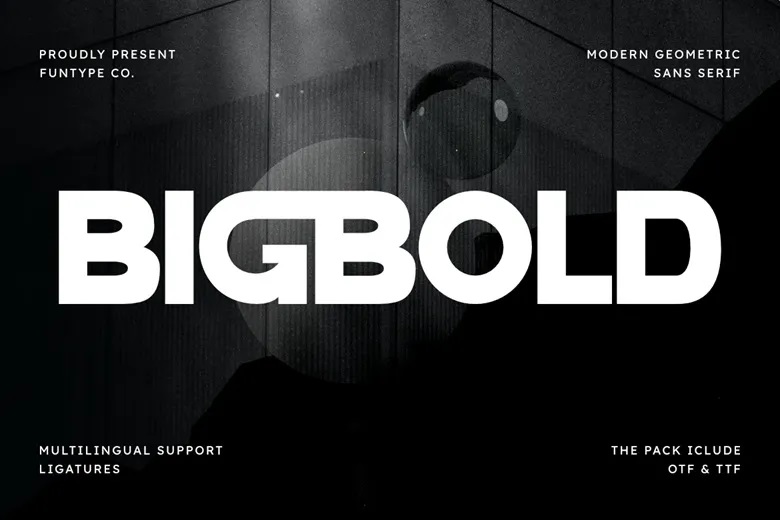
Bigbold Font
Bigbold is an incredible and futuristic geometrical sans serif font. True to the namesake, this typeface is incredibly bold and solid, and immediately stands out thanks to its rounded, friendly and yet assertive form. It’s designed to have the greatest impact and legibility, and is ideal for dramatic headlines, powerful branding and logo designs, sports graphics, editorial work and display purposes.
With its clean structure, ligatures, and multilingual support, Bigbold offers versatility and a contemporary, professional look for any project that needs to stand out and speak loudly.
Bigbold Sans Serif Font